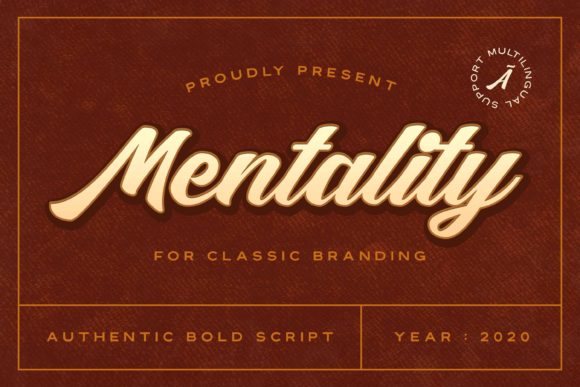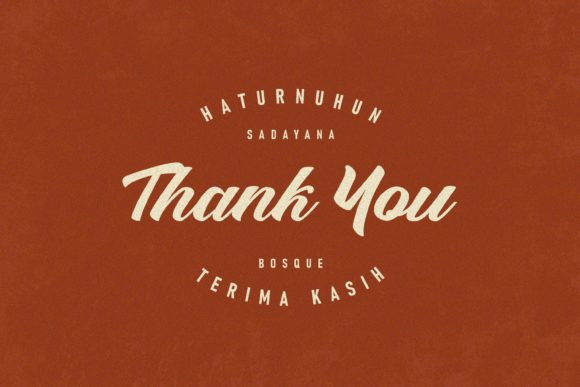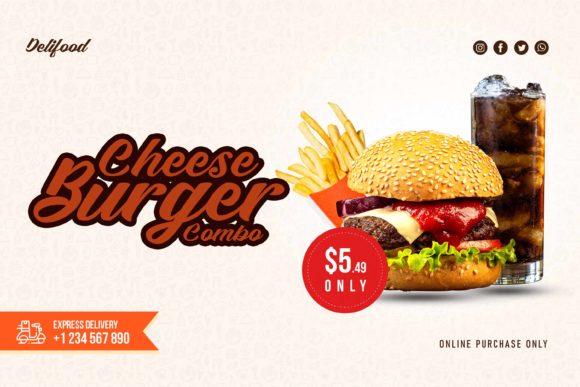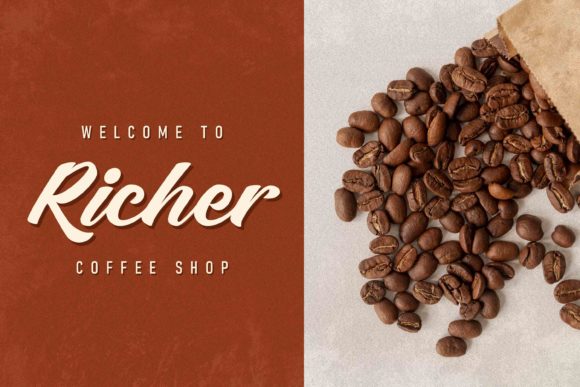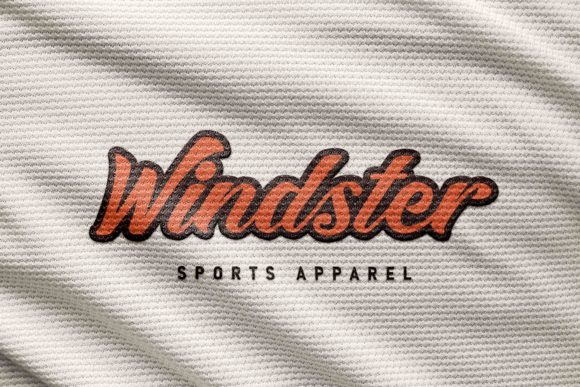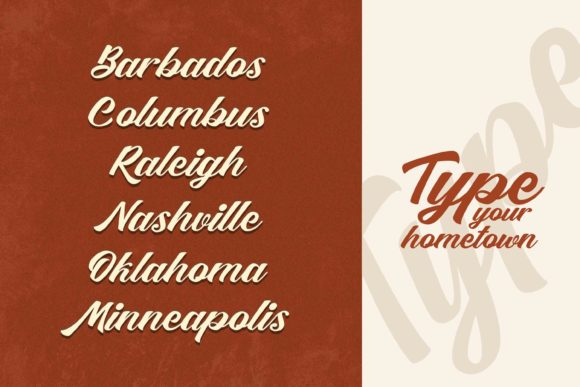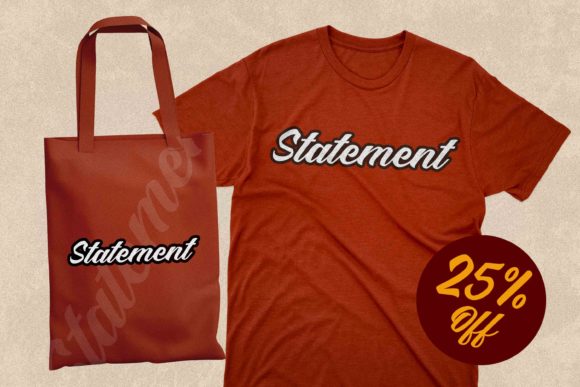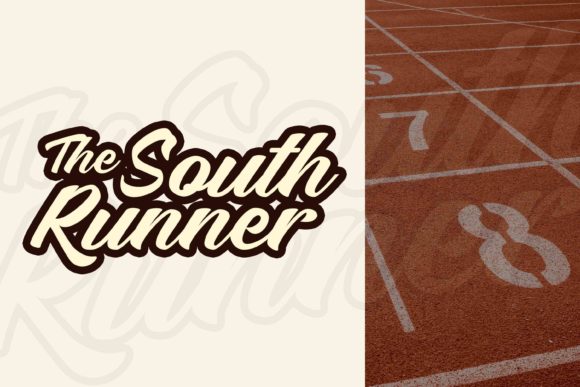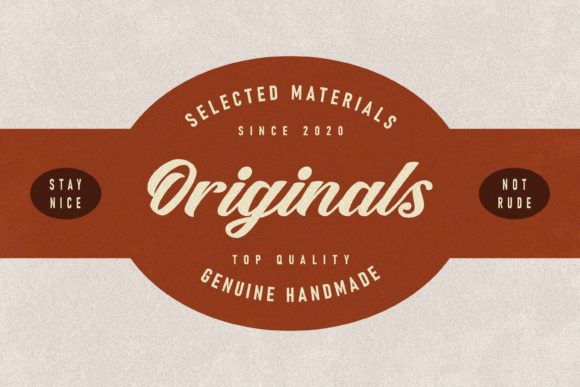
Mentality Font
About Mentality Font
Mentality is a delicate, elegant and flowing handwritten font. It has beautiful and well balanced characters and as a result, it matches a wide pool of designs. Add it to your most creative ideas and notice how it makes them come alive!